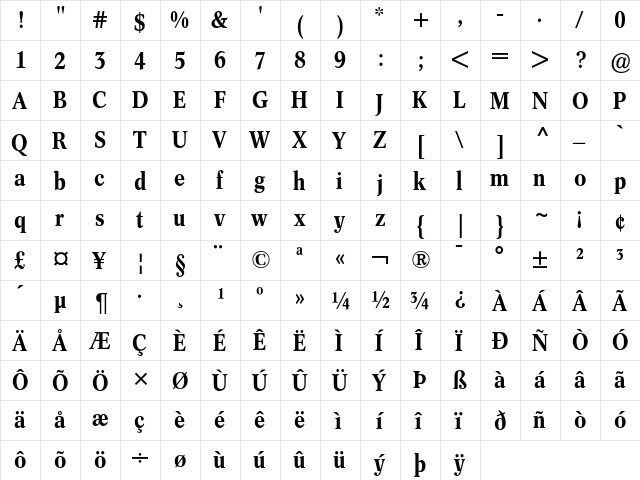
Concorde Nova Medium
Design Context for Concorde Nova Typeface
Concorde Nova offers clean, dependable letterforms without strong stylistic allegiance, making it a practical choice for designers who need flexibility.